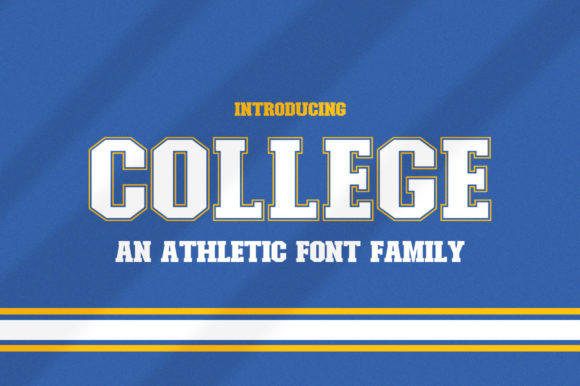
Introducing the College Font – the perfect font for all your creative projects! Created by Salt and Pepper Fonts, this font family falls under the display category and is ideal for adding personality to your designs. But what sets College Font apart is its unique appeal as a Font For Jersey. This cute and casual font will give your jersey designs the edge it needs to stand out.
With College Font, you don't have to compromise between style and functionality. Its friendly and approachable feel makes it perfect for social media graphics, posters, and even calligraphy scripts for DIY projects. You can use it to give your designs a touch of playfulness and make them stand out.
If you're a designer looking to make a statement, College Font is the way to go. It's the perfect choice for anyone looking to add a personal touch to their designs, and its versatility means it can be used across a variety of different platforms. Whether you're designing for print or digital media, College Font is the go-to font for anyone looking to elevate their design.
Don't settle for boring fonts – take your designs to the next level with College Font. Add a touch of personality to your designs and let them stand out from the crowd. Download College Font today and let your creativity run wild!